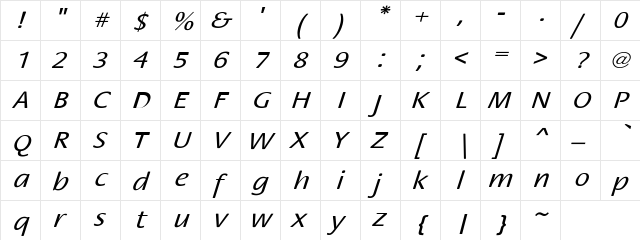
Rosamunde Lt Extended Oblique Regular
Design Context for Rosamunde Lt Extended Oblique Typeface
Rosamunde Lt Extended Oblique offers clean, dependable letterforms without strong stylistic allegiance, making it a practical choice for designers who need flexibility. The dynamic lean of this cut emphasises speed and emphasis in any layout. Its slender proportions lend an understated elegance to any composition.
Pro Tip: Use Rosamunde Lt Extended Oblique for emphasis, pull quotes, and subheadings where its slanted energy can add rhythm to the layout.